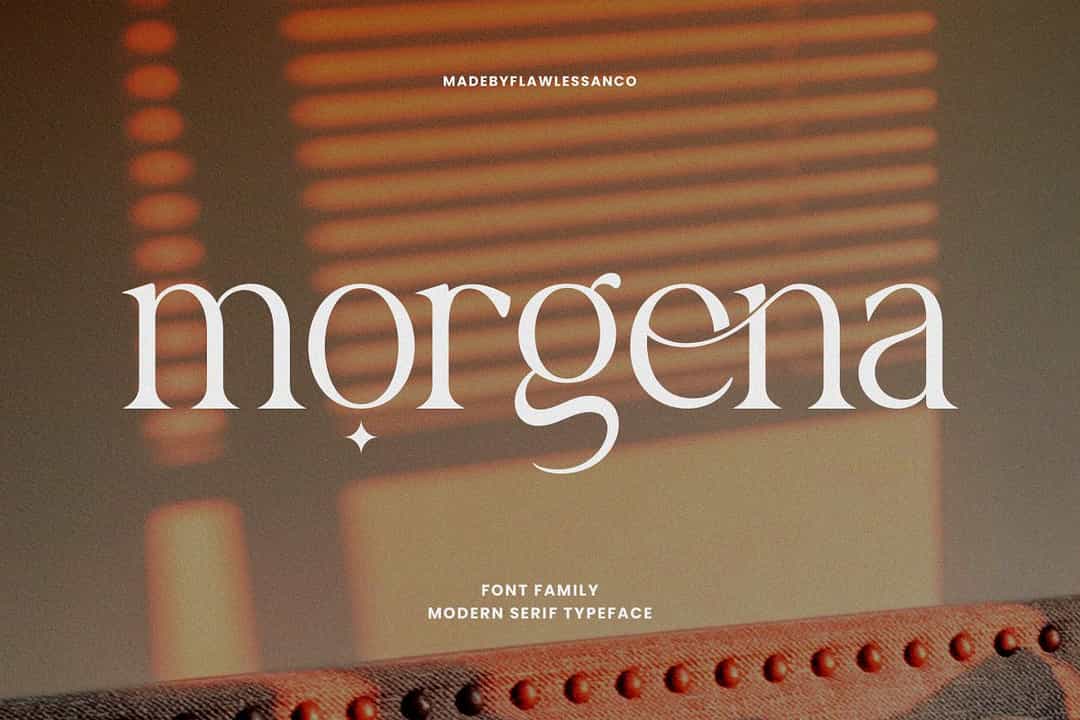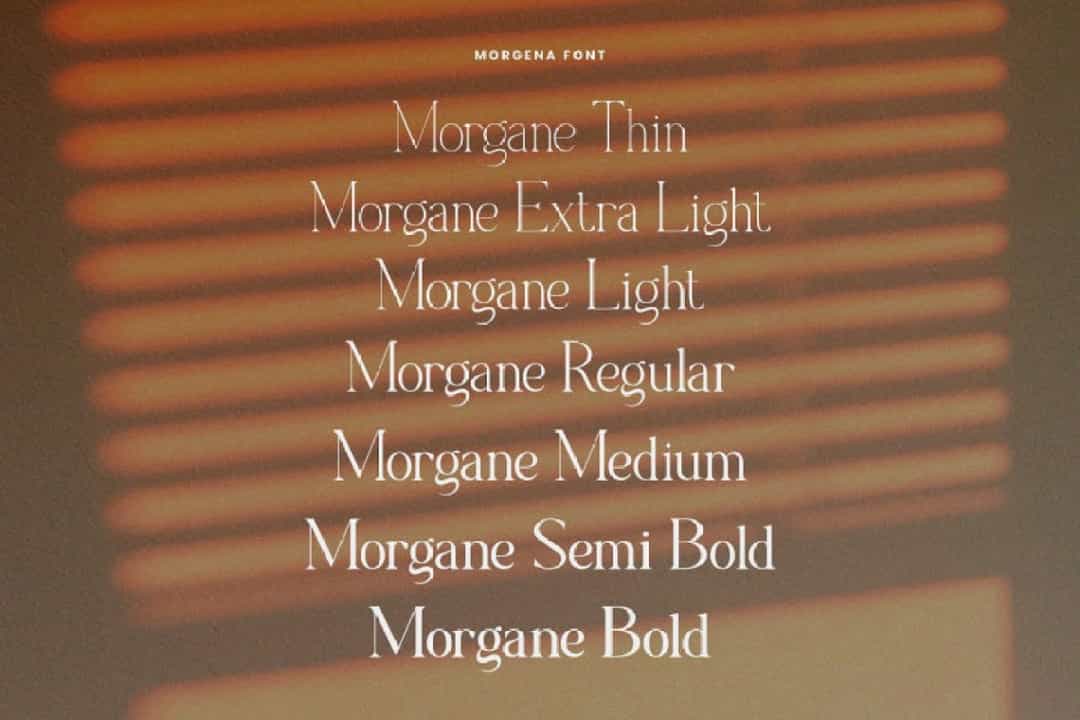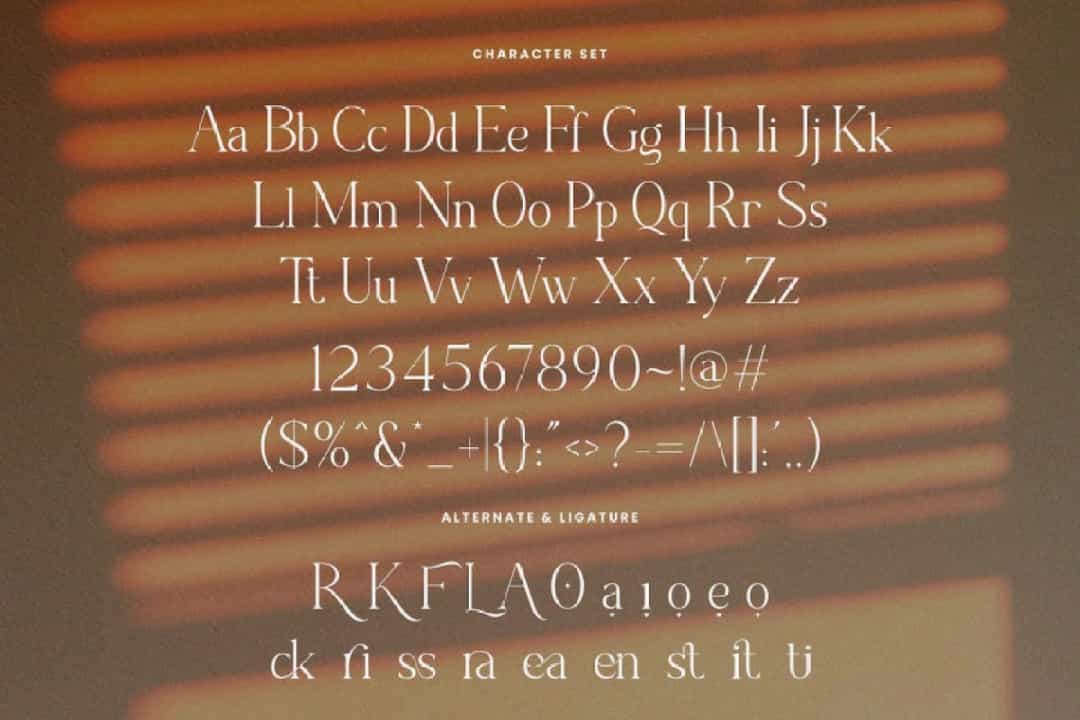
Discover Morgena Font, part of the Serif collection—a versatile and unique font perfect for adding a personal touch to your projects. Download it for free and enjoy crafting designs with style, from invitations to social media posts. This font is available exclusively for personal use, giving you the freedom to create without limits. Unlock your creativity with Morgena Font today!
Introducing “Morgena Family Font”. Welcome to a world of typography that is much more than just conventional with the “Morgena”, a typeface that has it all. The font family is a real composition containing Thin, Extra Light, Light, Regular, Medium, Semi-Bold, and Bold, so people will be able to create true masterpieces with the help of accurate and tuning notes of personality.